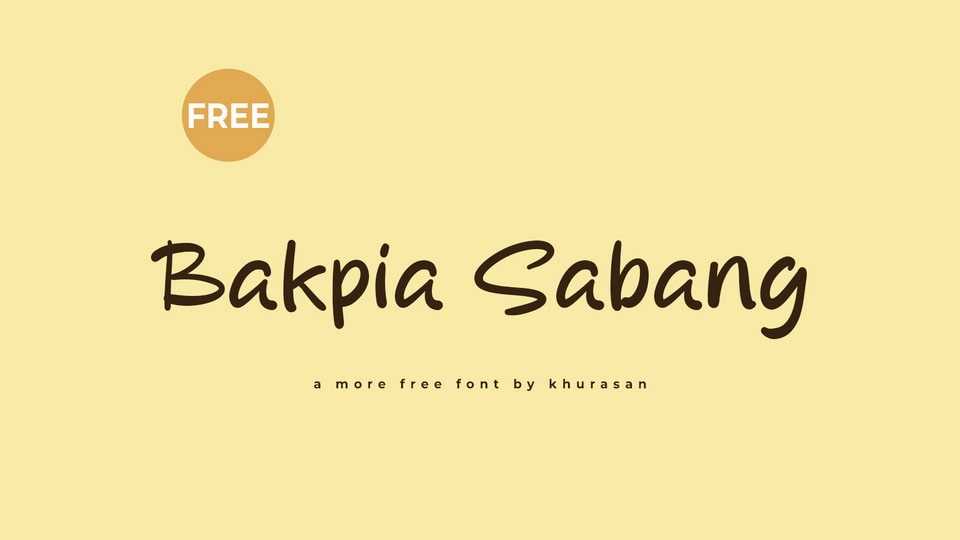
Download Bakpia Sapang font, a casual and simple handwritten typeface that brings a laid-back charm to your designs. Bakpia Sapang font is crafted with effortless strokes and relaxed letterforms, capturing the ease and informality of everyday handwriting.